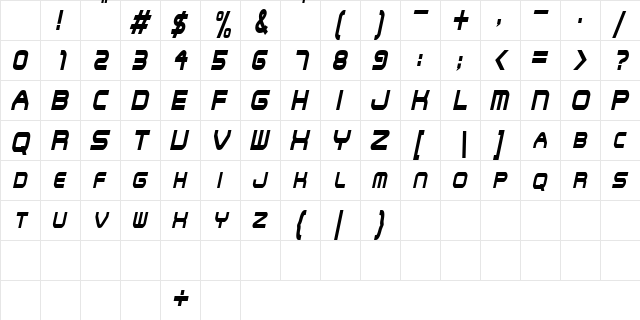
Complete SNFUCondensed Oblique glyph index. Displaying only characters natively supported by SNFUCondensed Oblique font.
SNFUCondensed is a composed and adaptable typeface that performs quietly and consistently across a wide range of design contexts. The slanted form adds forward momentum and visual energy. Its narrow stance lets it pack a punch even in space-constrained designs.